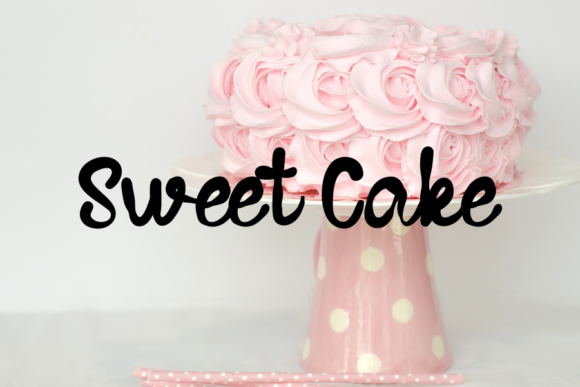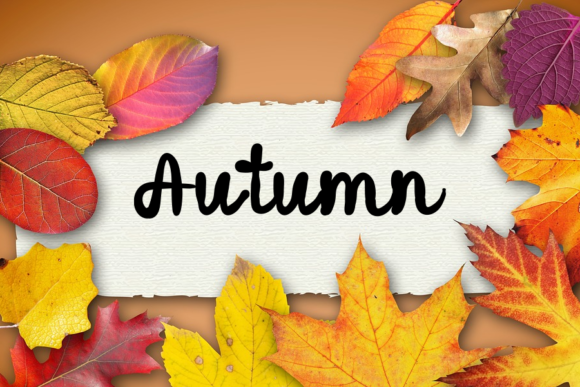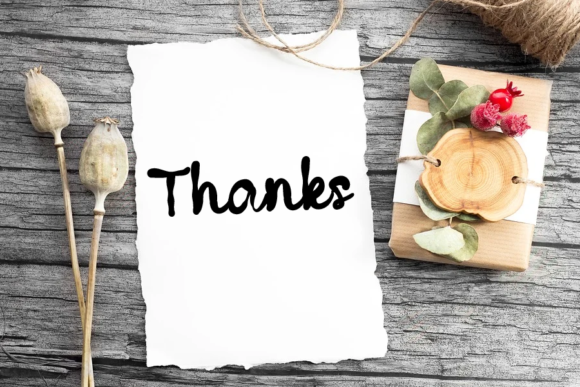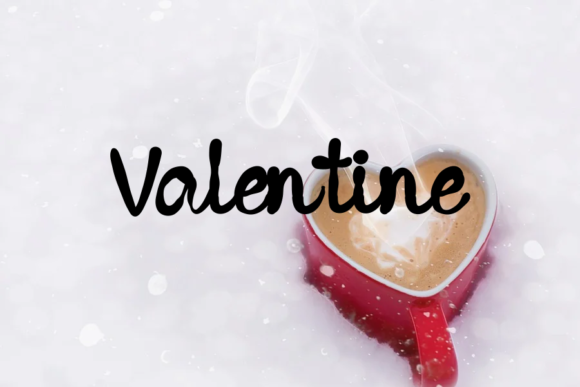
Jakarta Font
About Jakarta Font
Jakarta is a beautiful, simple and adaptable handwritten font. Its natural and unique style makes it incredibly fitting to a large pool of designs. The only limit is your imagination!